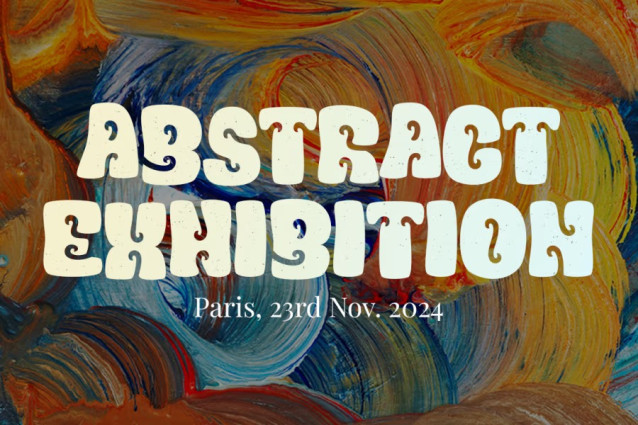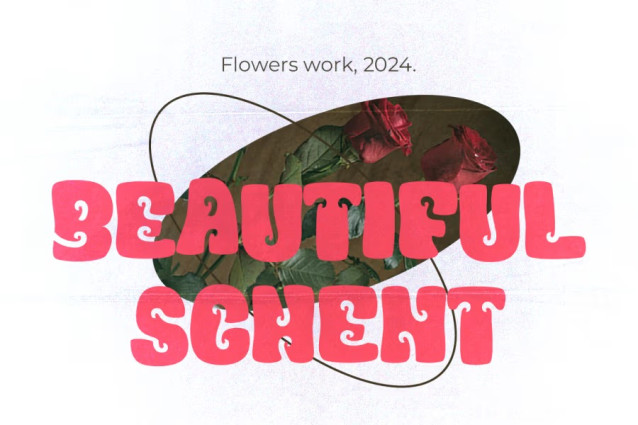
Funk Jive Font
Funk Jive Font is a bold and groovy typeface that channels the vibrant energy of the 1970s. Its chunky, curvy letterforms and whimsical swirls give it a playful yet funky personality. The unique shapes and bold strokes make it stand out while delivering a cheerful, retro-inspired vibe. This font is perfect for designs that demand attention and excitement, making it a great choice for vibrant and dynamic projects.
With rounded corners and creative curves, FUNK JIVE feels smooth and approachable. Its boldness ensures excellent visibility, even in crowded layouts or busy compositions. The font’s design is highly versatile, working well in both digital and print formats. Whether you’re creating posters, album covers, or party invitations, FUNK JIVE instantly adds a touch of retro charm. It also supports creative color combinations and layering, allowing designers to experiment with bold and eye-catching visuals.
Furthermore, this font isn’t just a design element—it’s a statement. Its playful energy can help set the tone for projects that aim to be fun, lively, and memorable. With FUNK JIVE, you can transport audiences back to the golden era of funk while maintaining a fresh, contemporary feel.
Retro Font FUNK JIVE Perfect For
Retro Font FUNK JIVE is ideal for designers and creators who want to evoke joy, nostalgia, and a sense of fun. Graphic designers can use it to create bold logos, eye-catching posters, or social media graphics that leave a lasting impression. It’s particularly suited for projects in music, entertainment, and lifestyle industries, including album covers, event branding, or festival promotions.
This font also shines in retro-themed party invitations, merchandise designs, or campaigns that embrace a playful 70s aesthetic. Content creators and influencers can use it for thumbnails, banners, or posts that demand a vibrant and energetic tone. Additionally, brands in fashion or home decor with a retro or bohemian feel will find FUNK JIVE an excellent addition to their visual identity.
Teachers and event planners can also utilize FUNK JIVE for educational materials or celebratory banners with a fun twist. Small business owners looking to infuse personality into their branding will appreciate its versatility and charm. It’s a great choice for anyone who wants to connect with their audience through bold, lively visuals.
Whether you’re an artist, marketer, or entrepreneur, Retro Font FUNK JIVE brings personality and funk to your designs. Its timeless charm, playful energy, and modern versatility ensure unforgettable visuals in any project.